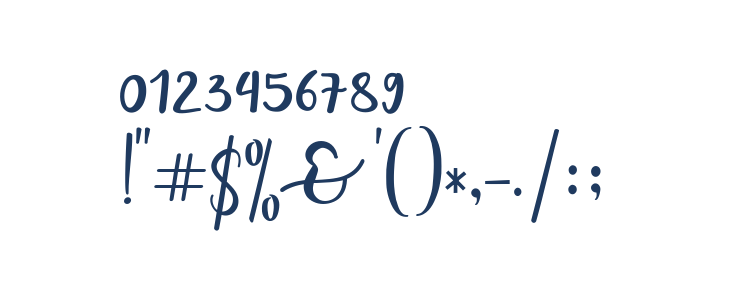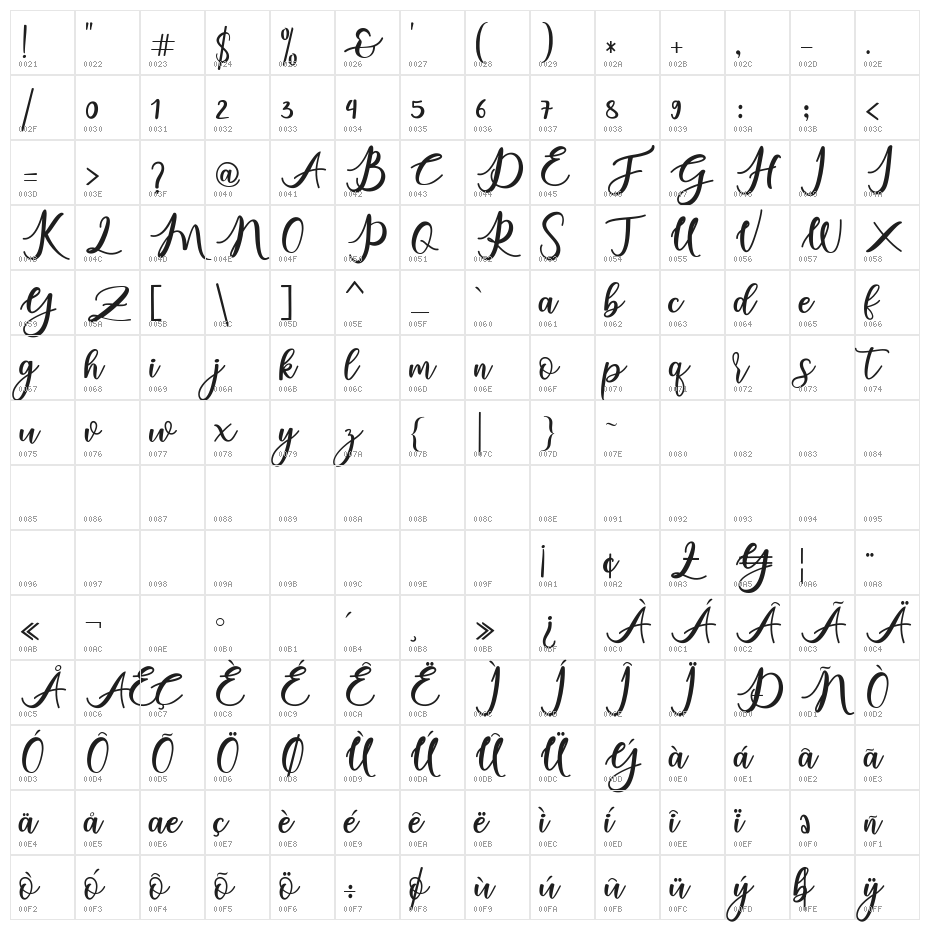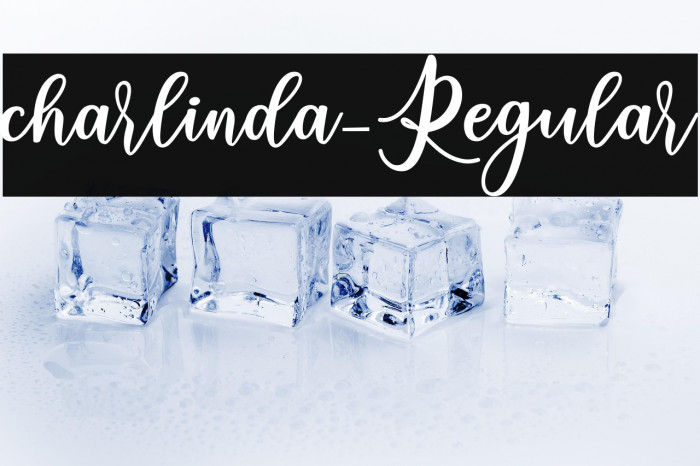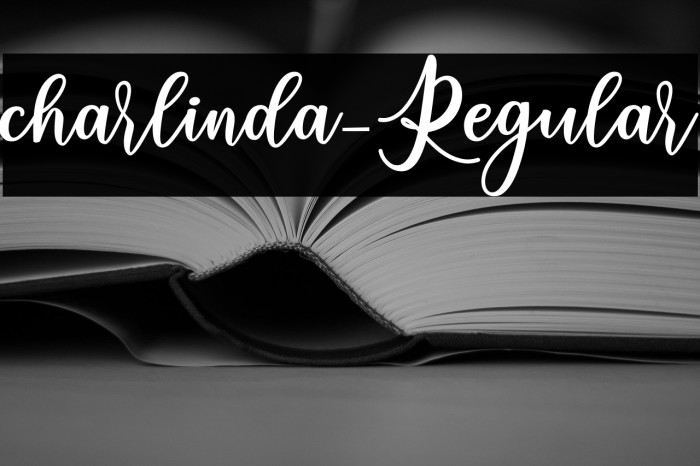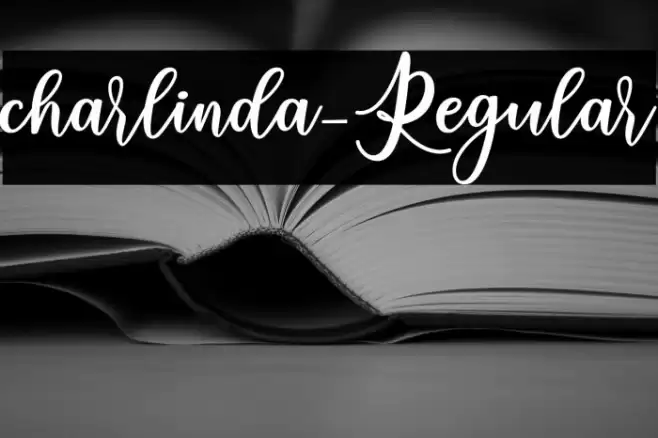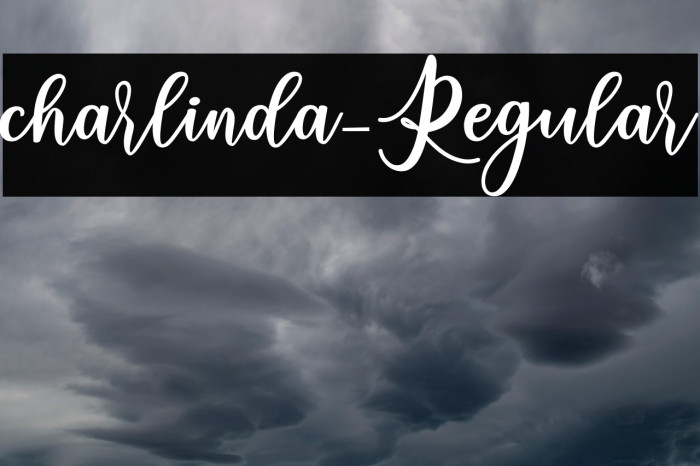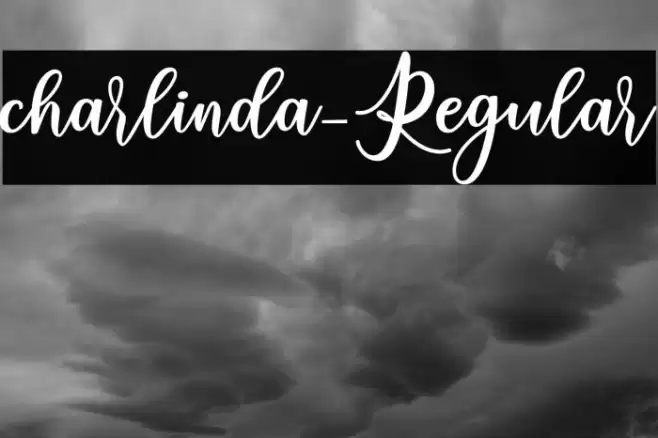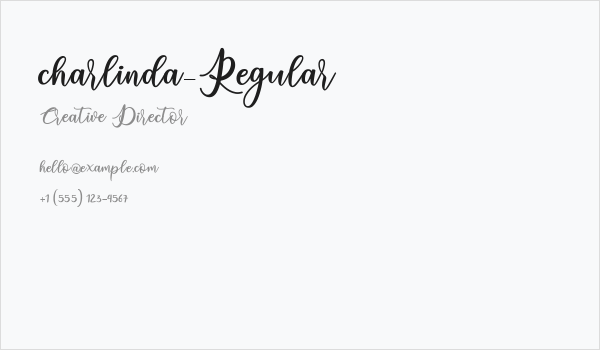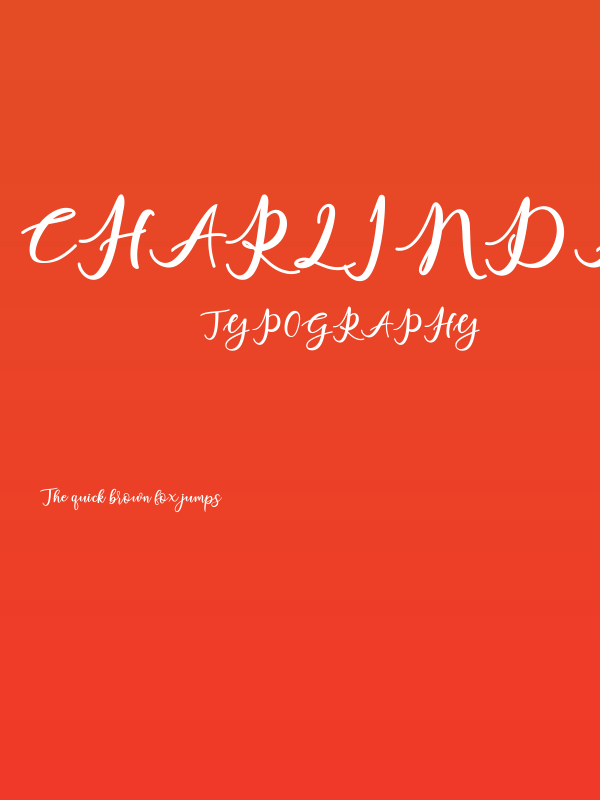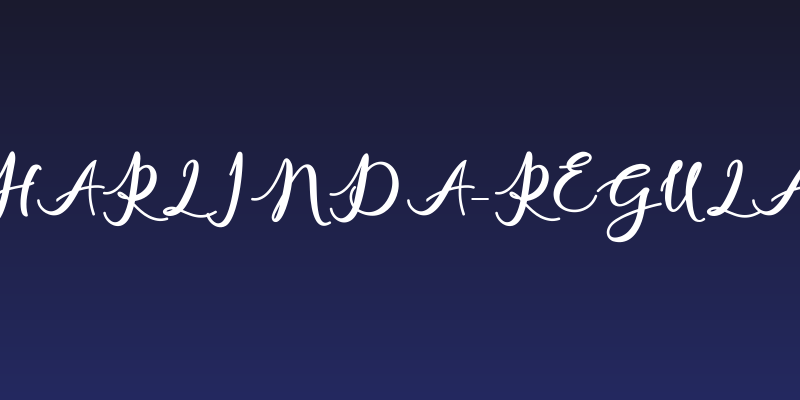
charlinda-Regular Font
charlinda-Regular Description
This font features an elegant and flowing script style, characterized by its smooth, cursive letterforms. The uppercase letters exhibit graceful loops and swirls, while the lowercase letters maintain a consistent fluidity, enhancing the overall aesthetic. The numerals are clear and maintain the script style, ensuring readability. Special characters are thoughtfully integrated, maintaining the font's cohesive look. This font exudes a sense of sophistication and charm, making it suitable for a variety of creative applications.